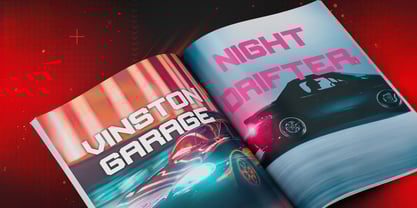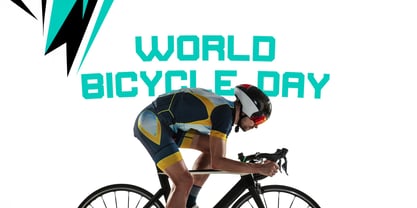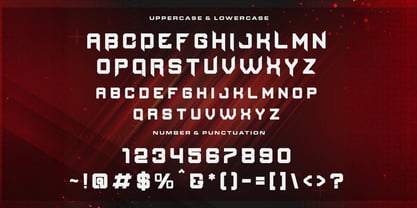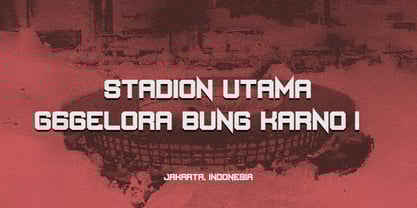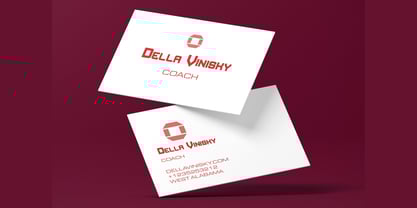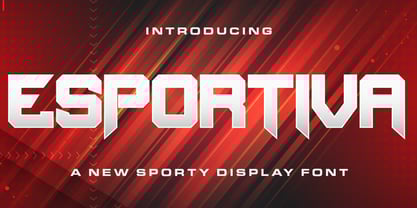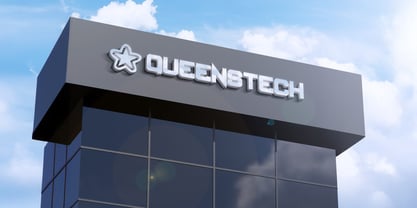
The Esportiva Font Family was designed by Virgiawan Listanto and published by Stringlabs Creative Studio. Esportiva contains 1 styles. More about this family
Esportiva is a powerful and futuristic sporty display font designed to dominate the dynamic world of esports. Its bold, geometric letterforms and clean lines give it a modern, tech-inspired feel that exudes speed and strength. It's the perfect choice for projects that need to make a statement. Whether you're creating a logo for a gaming team, a headline for a tech conference, or branding for athletic apparel, Esportiva brings a competitive edge that's ready to win.